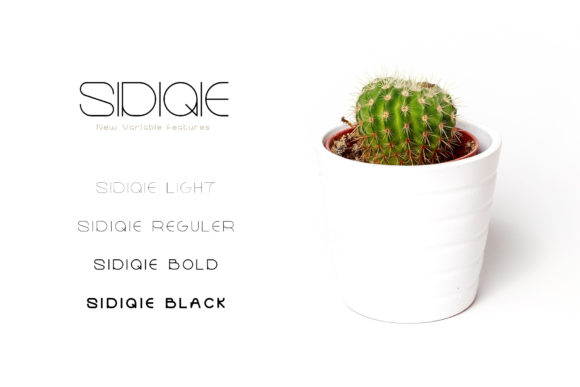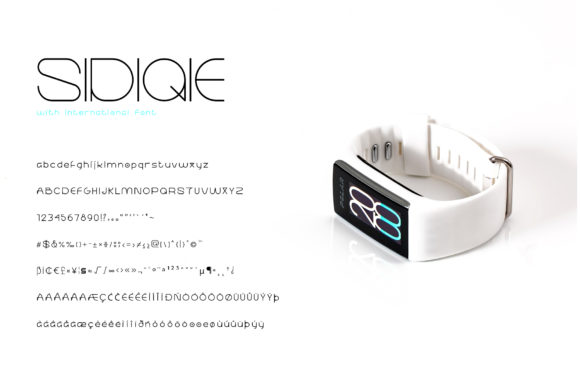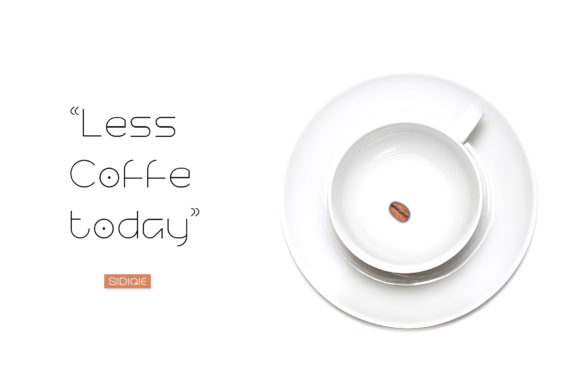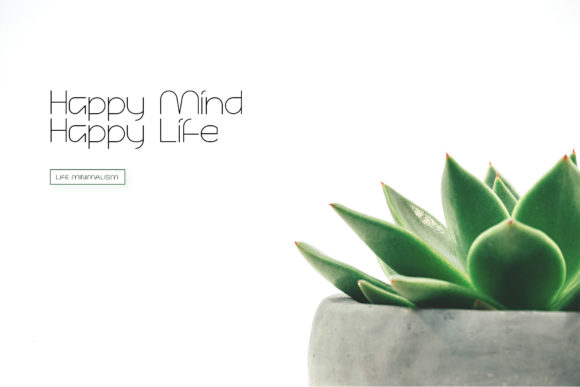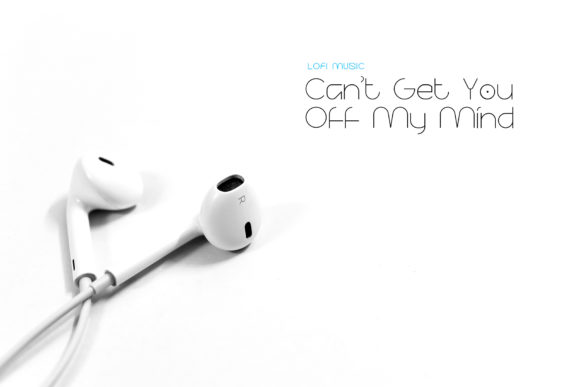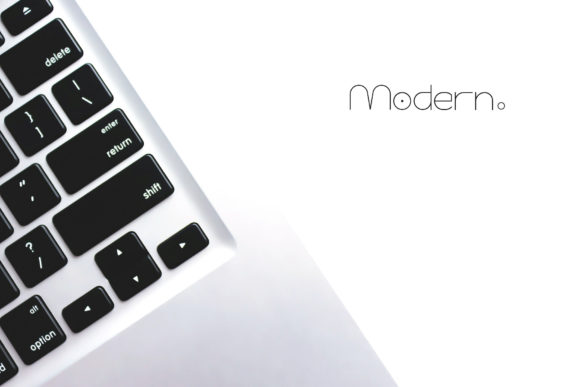
Introduction to Sidiqie Family Font
You’ve spent hours crafting the perfect design concept, only to be held back by the perfect font. We’ve all been there – the frustration of scrolling through endless design resources, searching for that one elusive font that brings your creative project to life. But what if I told you that the solution is just a download away?
Enter the Sidiqie Family Font, a modern and wide lettered sans serif font that’s sure to elevate your design to new heights. With its high-quality design and transparent background, this font is the perfect addition to any creative project. Whether you’re a seasoned designer or just starting out, the Sidiqie Family Font is a valuable resource that’s sure to become a go-to favorite.
In this article, we’ll take a closer look at what makes the Sidiqie Family Font so special and how it can be used to take your designs to the next level.
Key Features of Sidiqie Family Font
- High-quality design resource ideal for creative projects, offering a unique and stylish look.
- Includes multiple font styles within the Sidiqie Family Font, providing flexibility for various design needs.
- Transparent background, making it easy to overlay on images or other design elements.
- Each font style is available in 5 different font sizes, from 24 to 72 points, and with a resolution of 300 DPI.
- Perfect for use in various design contexts, including logos, branding, and typography-based projects.
Honest Review: Sidiqie Family Font
As a designer, I’m always on the lookout for high-quality design resources that can elevate my creative projects. The Sidiqie Family Font is one such resource that caught my attention.
- Unique Character Set: The Sidiqie Family Font offers a unique and extensive character set that includes a wide range of languages, making it perfect for international projects.
- High-Quality: The font is crisp, clear, and highly legible, making it perfect for both digital and print projects.
- Transparent Background: The transparent background option allows for seamless integration with other design elements.
- Limited Font Weight Options: While the font has a wide character set, it’s limited to only a few font weights, which may not be suitable for all design projects.
- No Italic Option: Unfortunately, the font doesn’t have an italic option, which may be a drawback for designers who prefer to use italic text in their projects.
Overall, the Sidiqie Family Font is a solid choice for designers looking for a high-quality, unique font for their creative projects. While it has some limitations, its strengths make it a worthwhile download for designers on a budget.
The Sidiqie Family Font is a versatile and high-quality design resource ideal for creative projects. This font features a transparent background, making it a perfect choice for designers who want to add a touch of elegance to their work.
To get the most out of the Sidiqie Family Font, consider the following tips:
- Use it in combination with other design elements to create a cohesive look.
- Experiment with different font sizes and styles to add visual interest.
- Use the transparent background to create a sense of depth and layering.
The Sidiqie Family Font is ideal for a variety of creative projects, including:
Q: Does the Sidiqie Family Font have a transparent background?
No, the Sidiqie Family Font does not have a transparent background. However, you can use the font with a transparent background in design software that supports this feature, such as Adobe Illustrator or Canva.